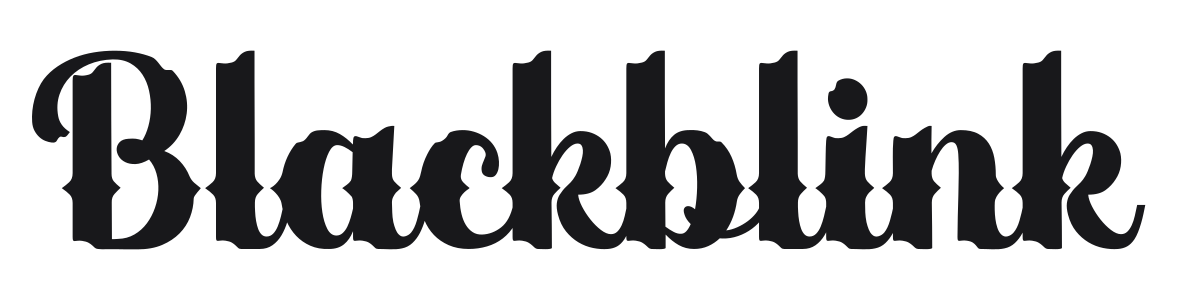
Blackblink
Blackblink is a bold connected script that fuses cursive flow with blackletter angularity. Dramatic stroke contrast between heavy stems and hairline thins gives it the gritty presence of tattoo lettering or vintage underground typography. It commands attention at large sizes in branding, posters, and apparel graphics.